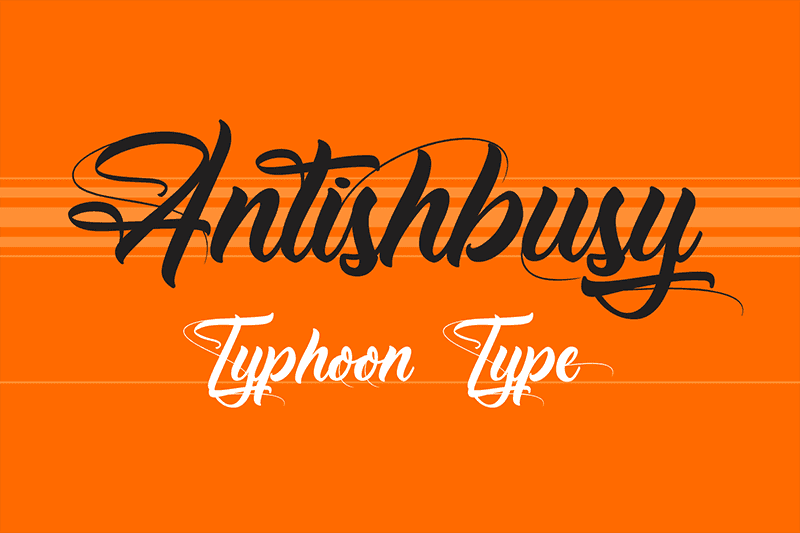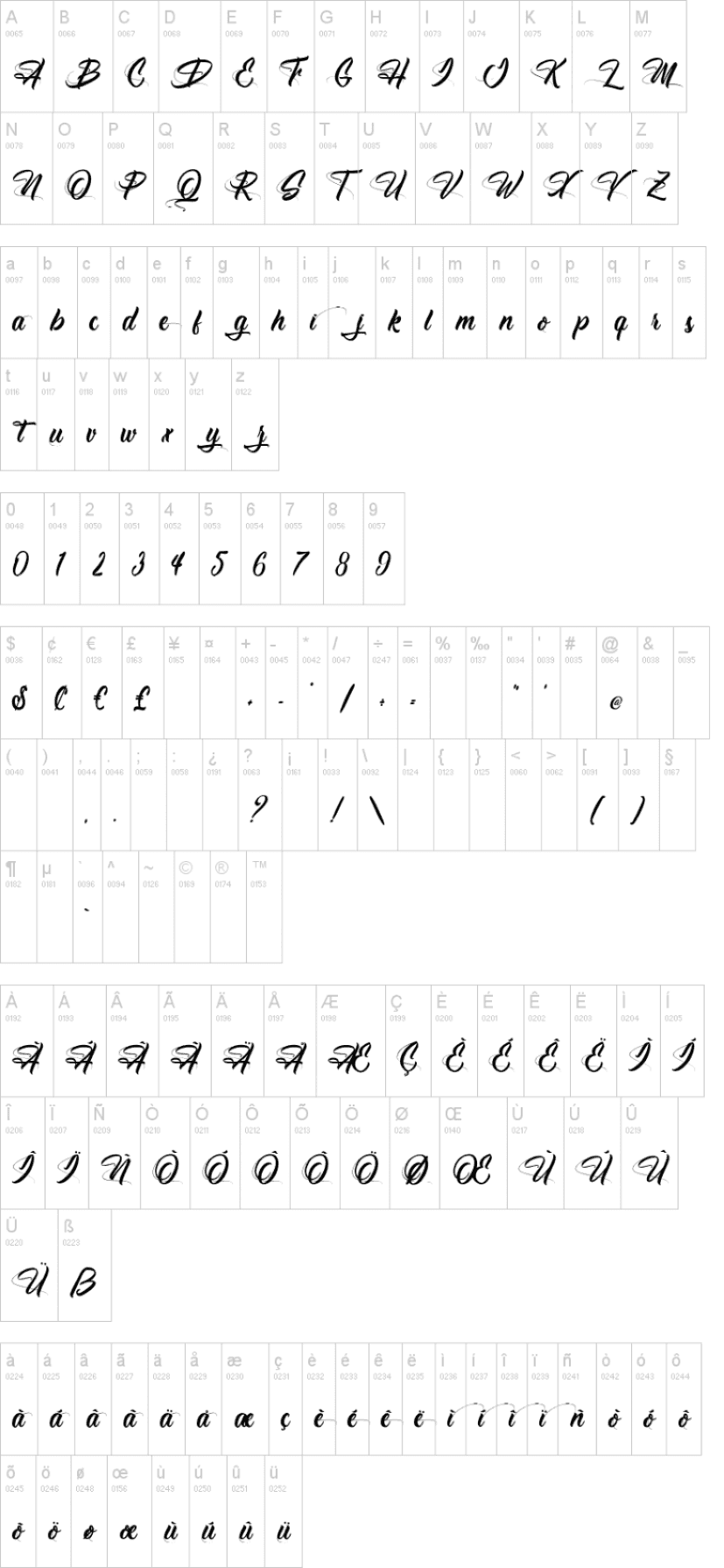
I like the font of Antishbusy a lot; it is very bold and has a good amount of personality. It is designed to make an impact and that makes it the right font for small businesses. It has lines that are more like doodles around the letters, and this makes it appear rather cheerful.